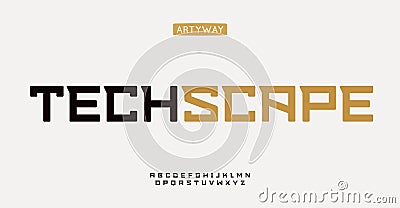
Modern square alphabet, angular geometric letters, minimalistic slab serif font for tech branding, futuristic digital #359692649
Modern square alphabet, angular geometric letters, minimalistic slab serif font for tech branding, futuristic digital headline, sportswear logo, cyber industrial typographic design. Vector typeset.